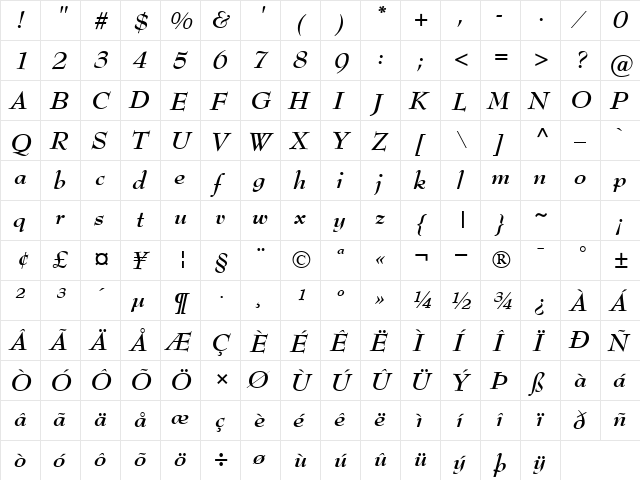
AI Bernhard Modern BoldItalic Font Preview
Design Context for AI Bernhard Modern Typeface
AI Bernhard Modern is a composed and adaptable typeface that performs quietly and consistently across a wide range of design contexts. Its italic angle brings a sense of urgency and motion to the letterforms. The heavy weight commands attention and anchors typographic hierarchies.
Pro Tip: Try AI Bernhard Modern for annotation and caption copy alongside an upright companion — the contrast in angle creates a dynamic but ordered typographic system.